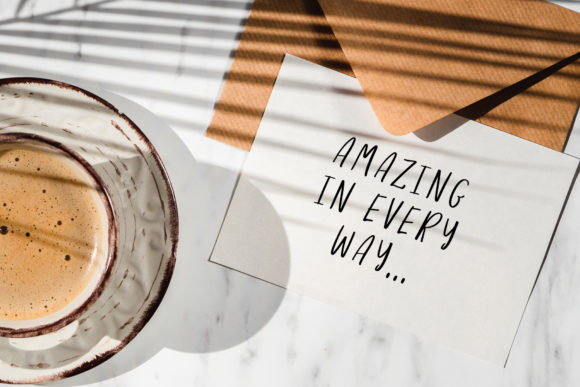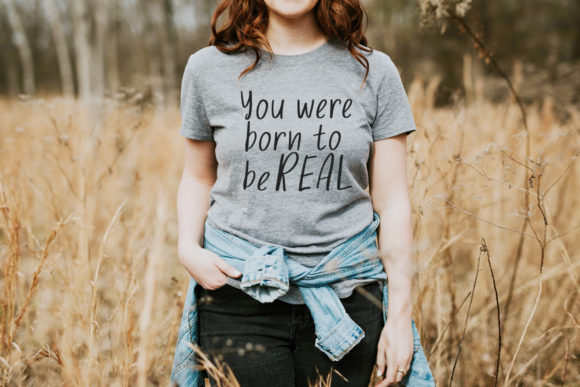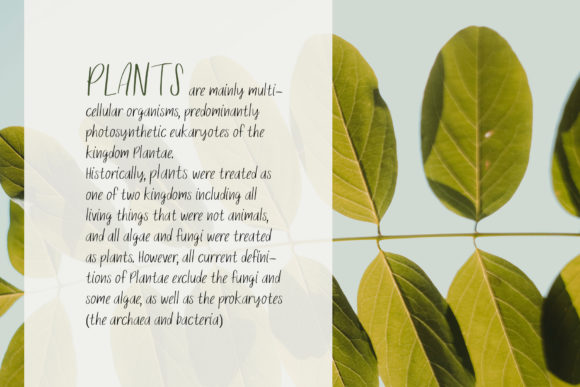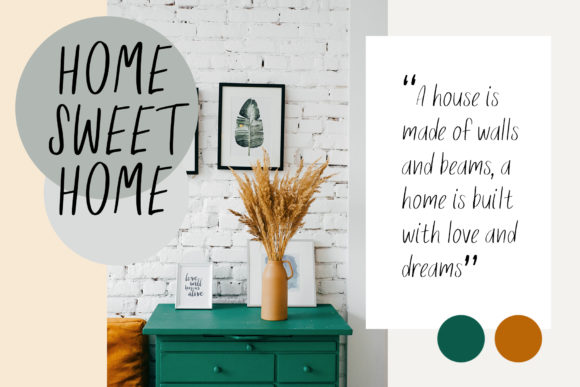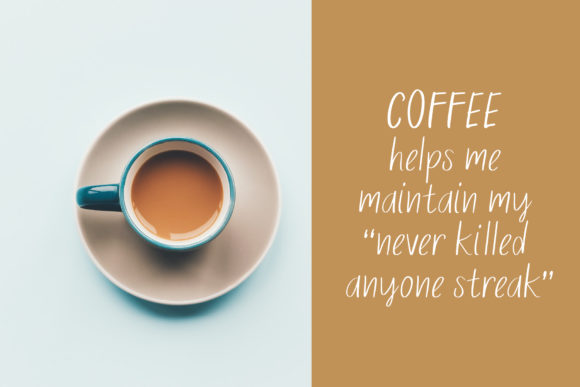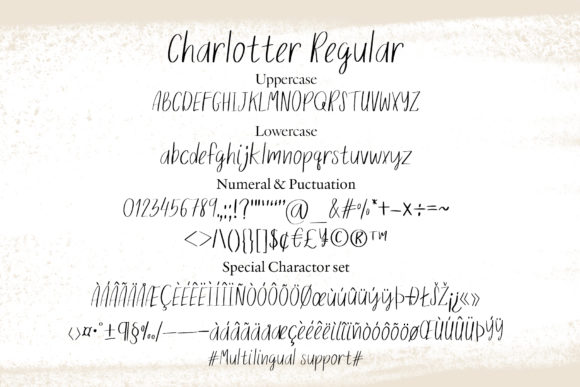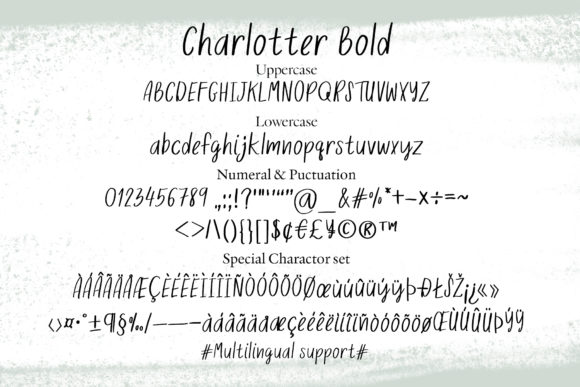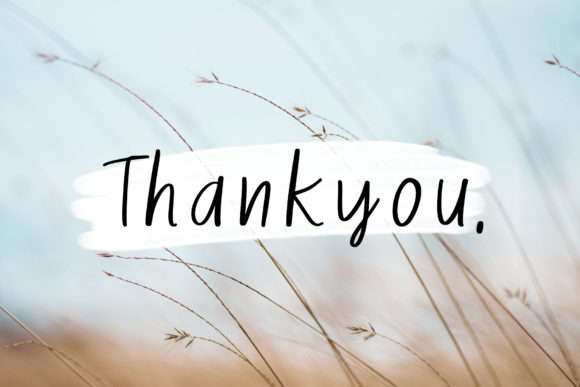
Charlotter Font
About Charlotter Font
Introducing Charlotter, a simple and friendly handwritten font that radiates warmth and approachability. This font is a true gem, thoughtfully designed to be a perfect match for a wide range of design projects. With its natural and unique style, Charlotter adapts seamlessly to various creative ideas, leaving you free to unleash your imagination without limits!
Charlotter’s simple and friendly style creates a sense of comfort and ease. Each letter flows naturally, as if penned with a familiar hand. Whether you’re working on social media graphics, invitations, quotes, or any other creative endeavor, Charlotter adds a touch of friendliness that captivates and connects with your audience.
The font’s versatility knows no bounds. As you embrace Charlotter, you’ll discover how effortlessly it complements a diverse array of design projects. From branding and logo design to greeting cards, posters, and digital artwork, Charlotter’s charm enhances your creations with its approachable appeal.
Imagine using Charlotter to create heartwarming messages and thoughtful designs. Its friendly and handwritten style becomes the perfect vessel for spreading positivity and kindness.
For invitations that radiate a warm and welcoming aura, Charlotter brings an air of familiarity and authenticity. Whether it’s for casual gatherings or formal events, your invites will feel like personal invitations from a dear friend.
In the digital realm, Charlotter adds a human touch to social media posts and blog graphics. Its natural and unique style resonates with viewers, creating a genuine connection and leaving a lasting impression.
Greeting cards become even more special with Charlotter’s approachable touch. Be it birthdays, holidays, or moments of encouragement, the font’s friendly and simple script elevates your greetings, making recipients feel truly cared for.
In conclusion, Charlotter is more than just a font; it’s an embodiment of warmth and friendliness. With its simple and friendly handwritten style, Charlotter becomes a valuable asset for all your design projects. Embrace the approachable nature of Charlotter and watch as your creations come alive with sincerity and charm. Let your imagination run wild in the simple and friendly embrace of Charlotter, the handwritten font that defines authenticity and connection.